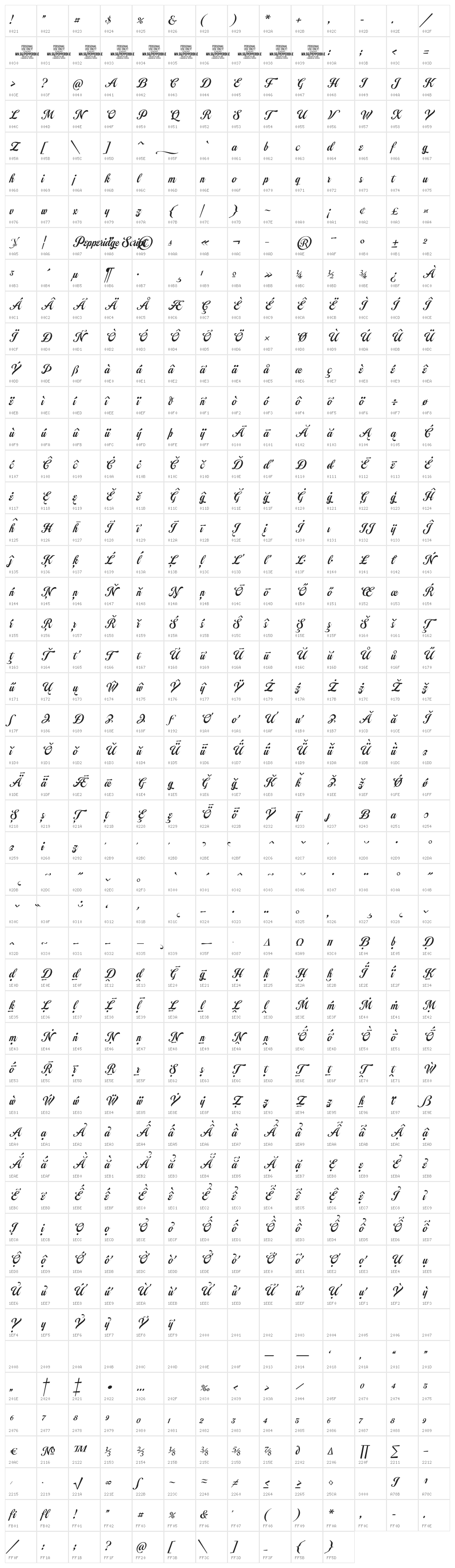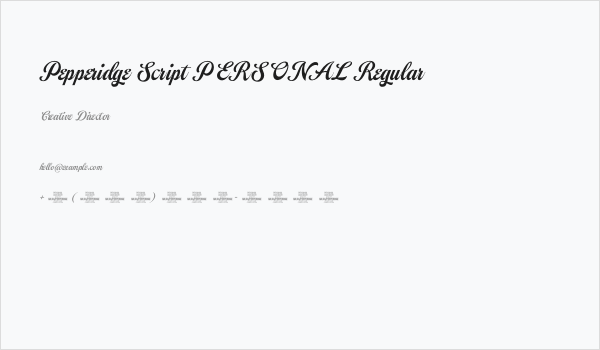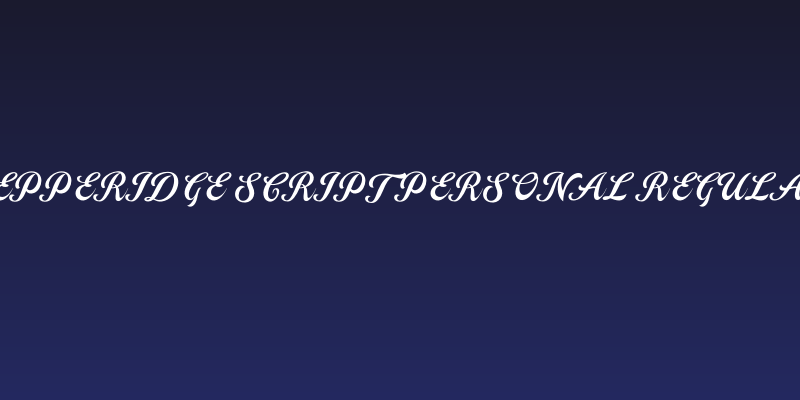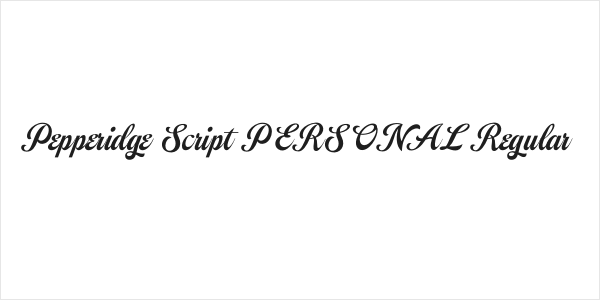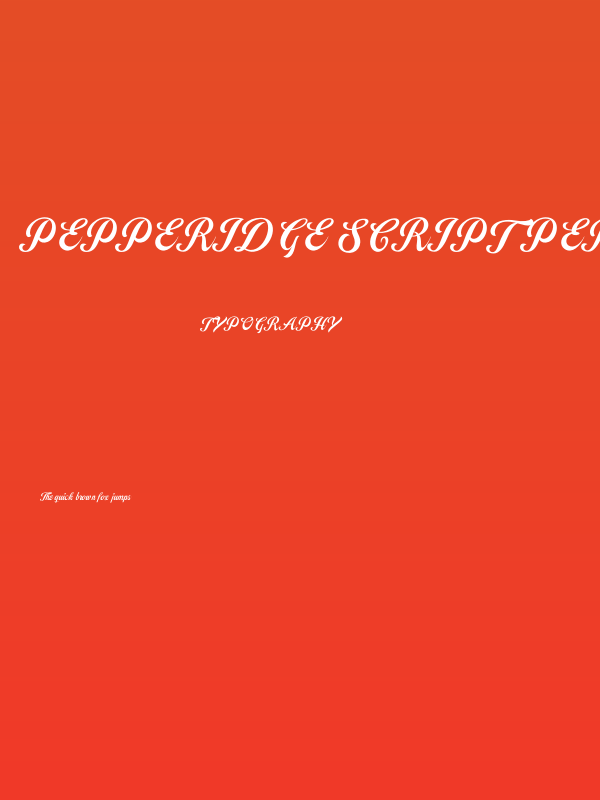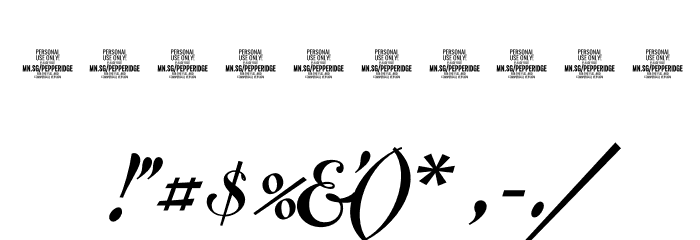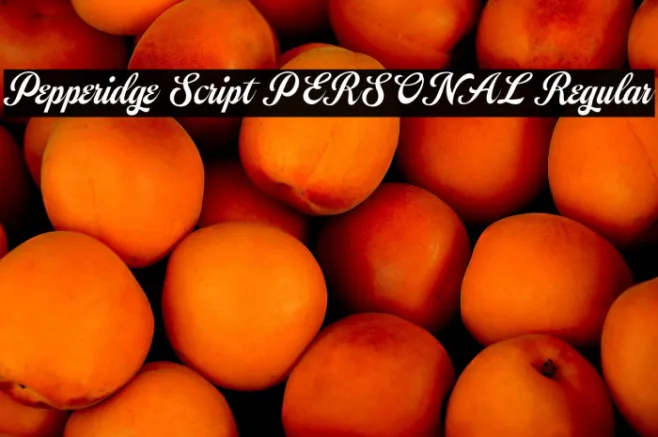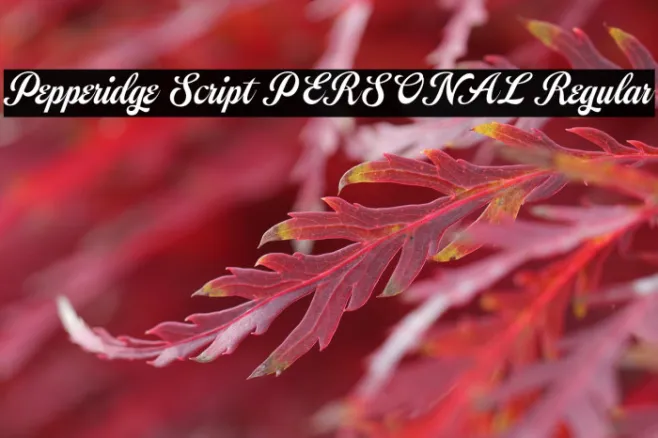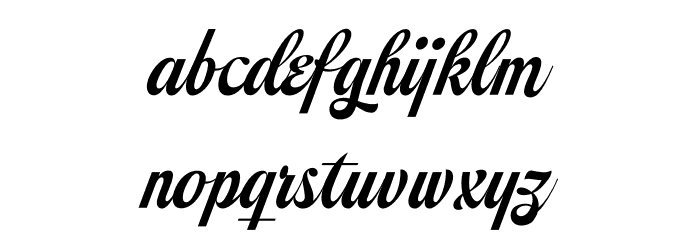
Pepperidge Script PERSONAL Regular Font
Pepperidge Script PERSONAL Regular Description
This script font features elegant, flowing lines that create a sense of sophistication and grace. The uppercase letters are bold and sweeping, with intricate curves and flourishes that add a touch of drama. The lowercase letters maintain a consistent style, with smooth connections between characters that enhance readability while preserving the font's decorative nature. The numerals and special characters are designed to complement the overall aesthetic, ensuring a cohesive look across all text elements. This font is ideal for projects that require a touch of elegance and flair, such as invitations, branding, and decorative headings.
| Use Case | Headlines, Invitations, Branding |
| Proposed Projects | Ideal for wedding invitations, luxury branding, and decorative headings. |